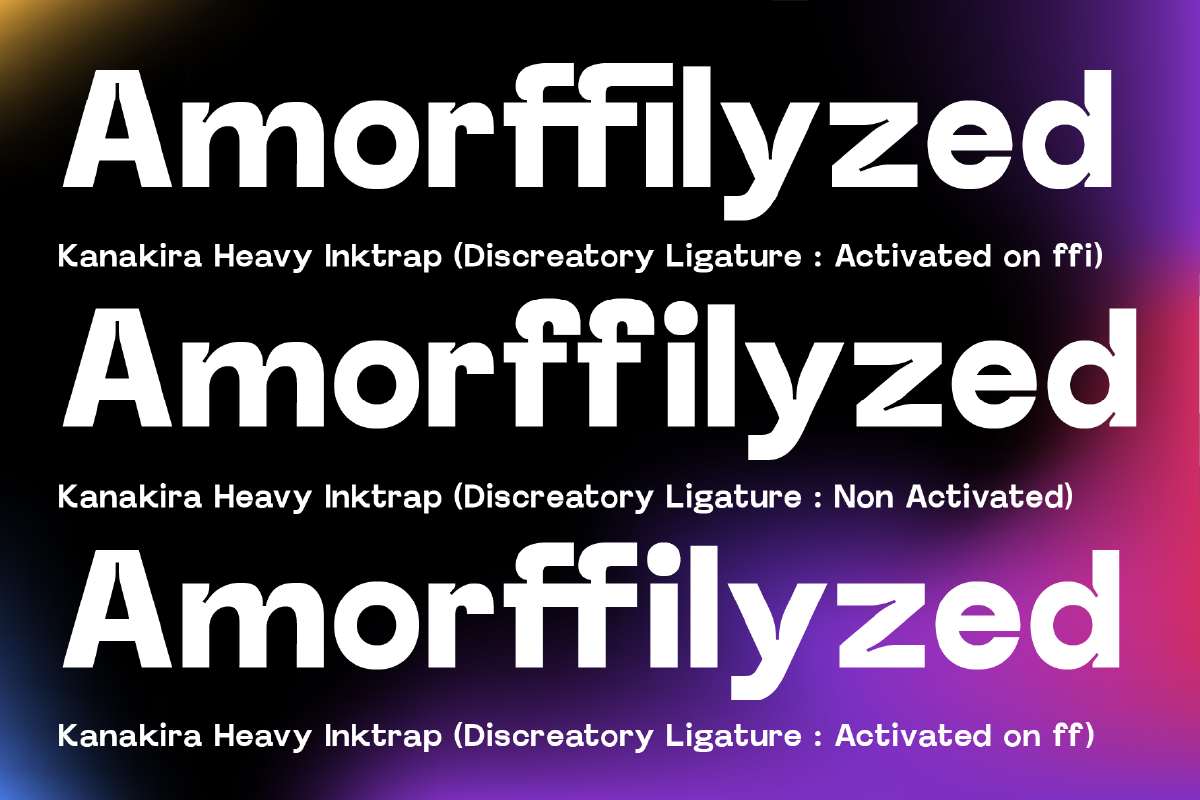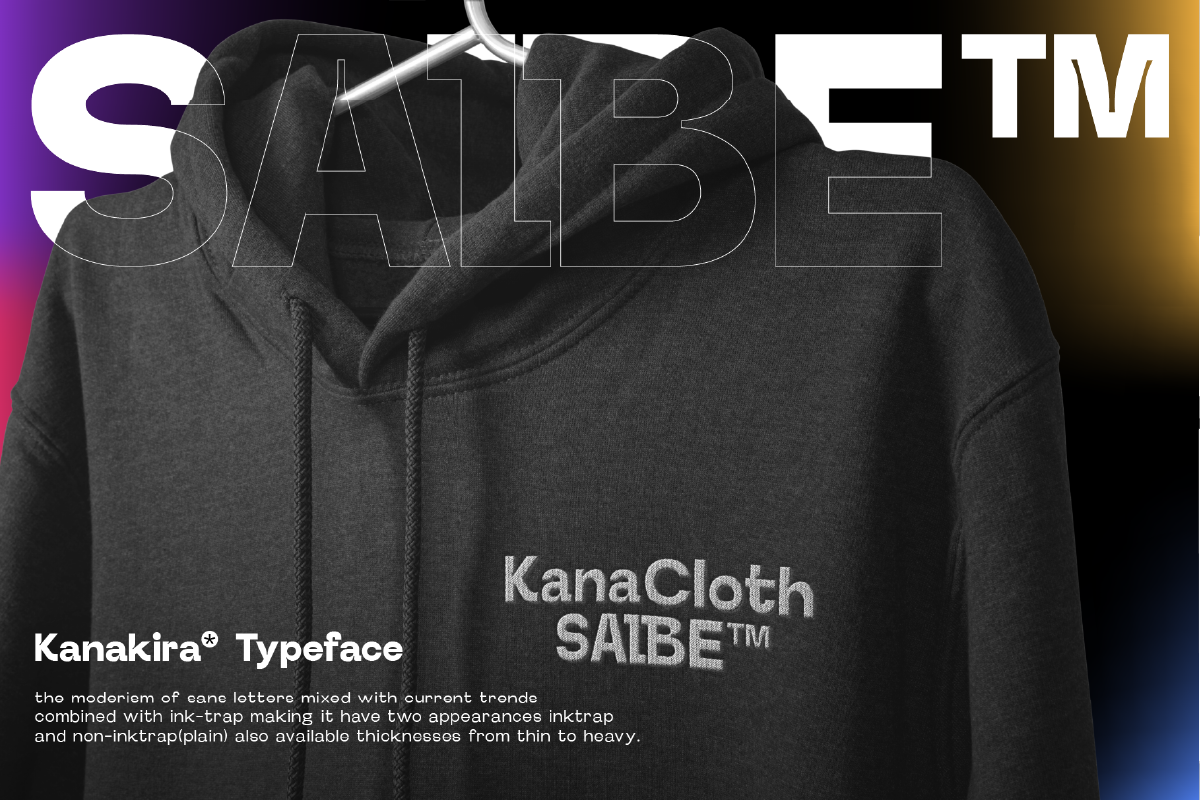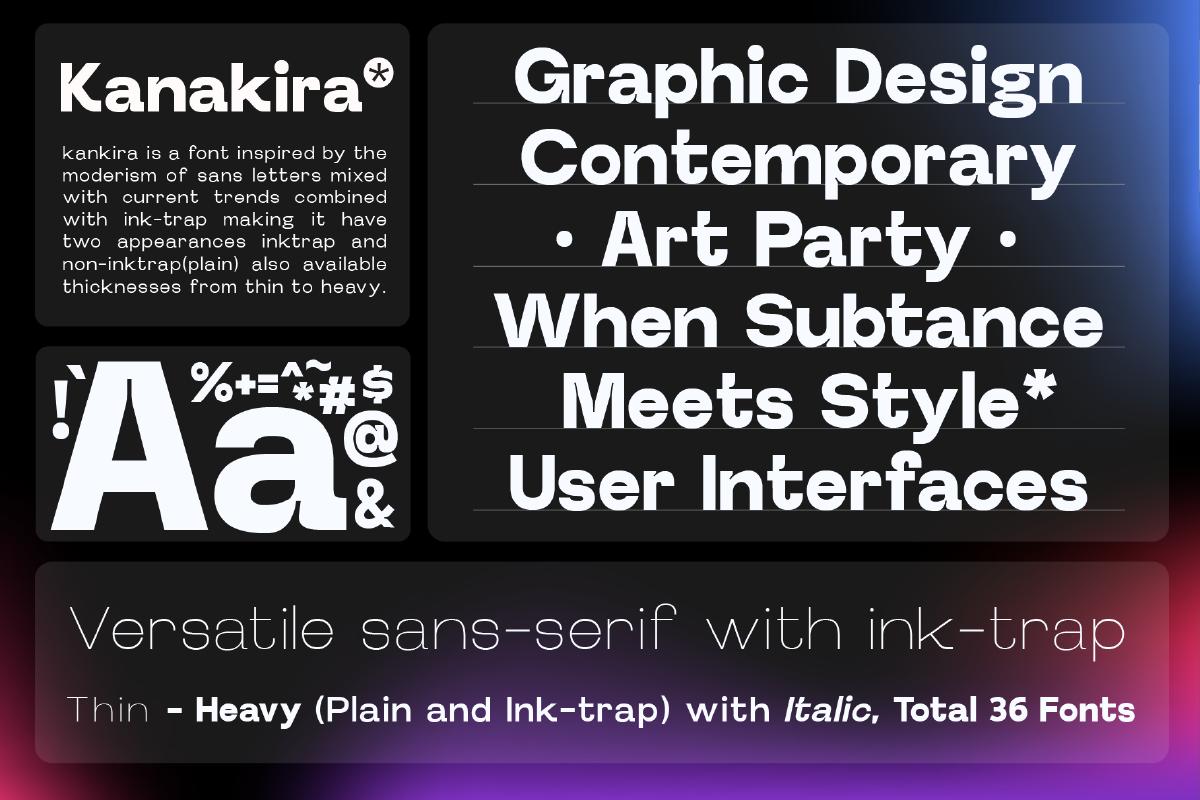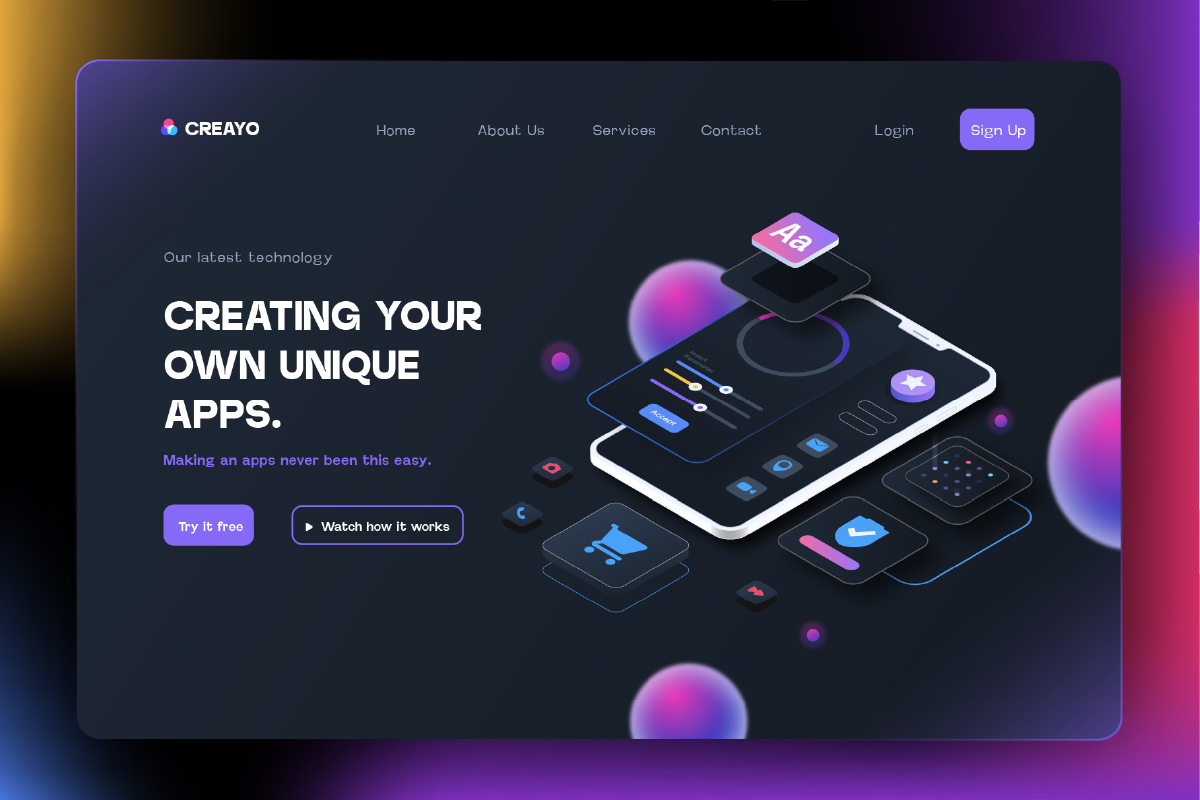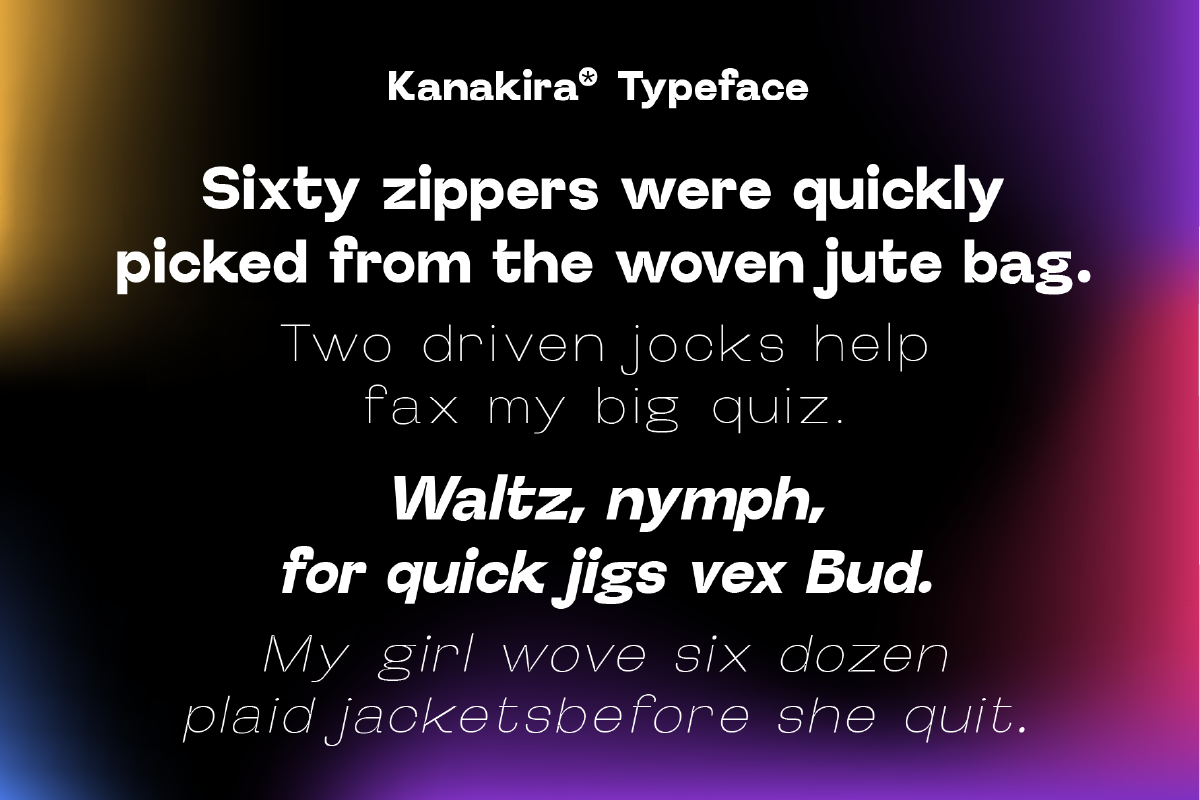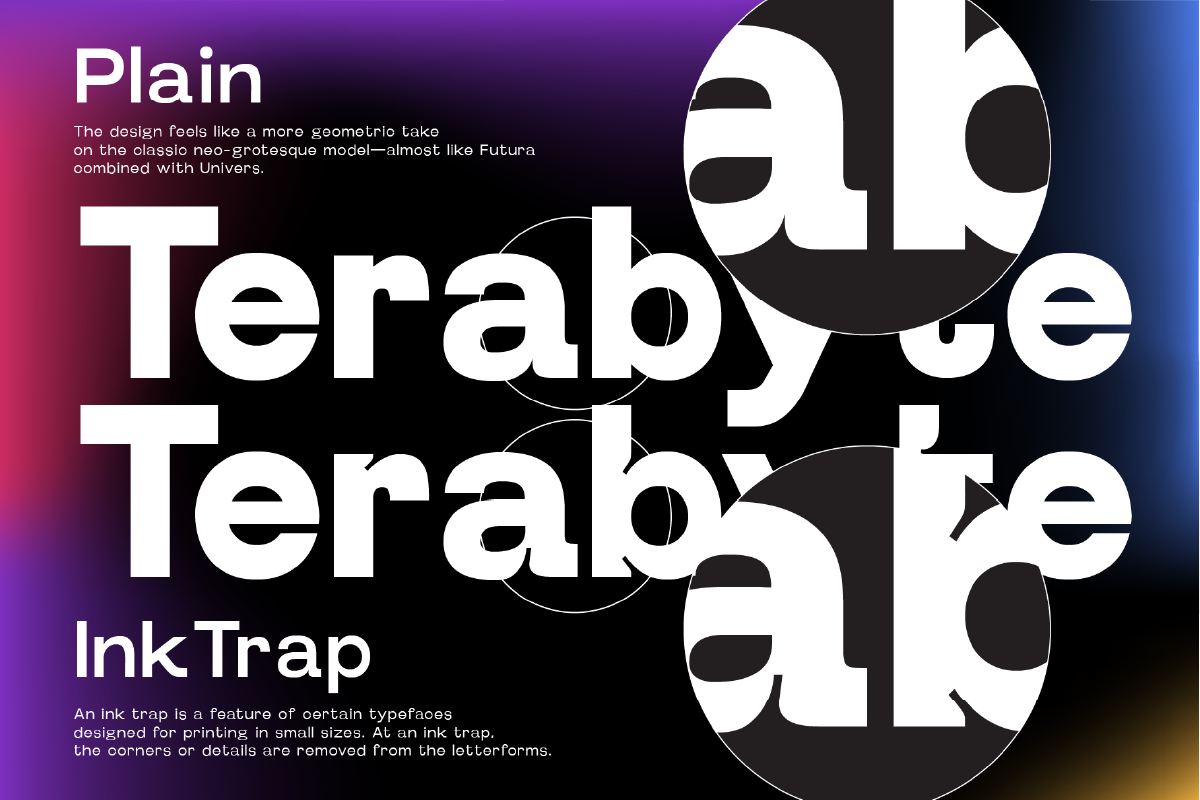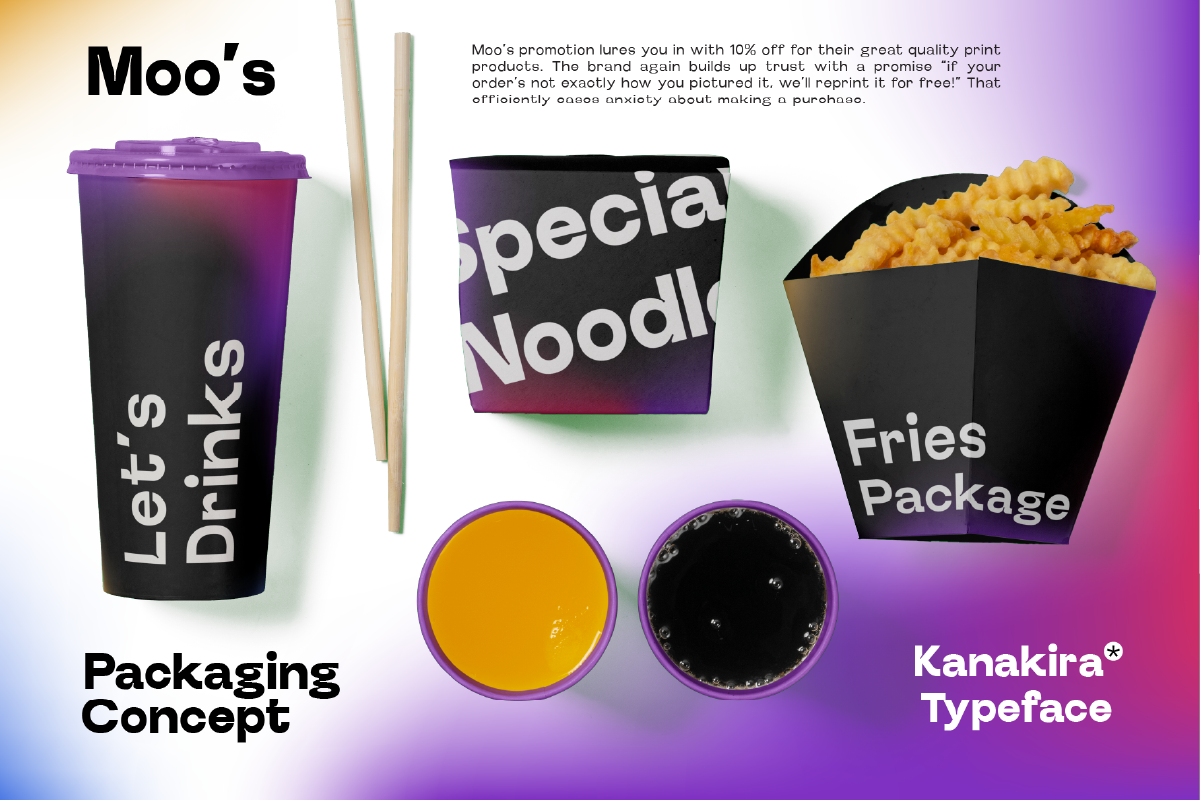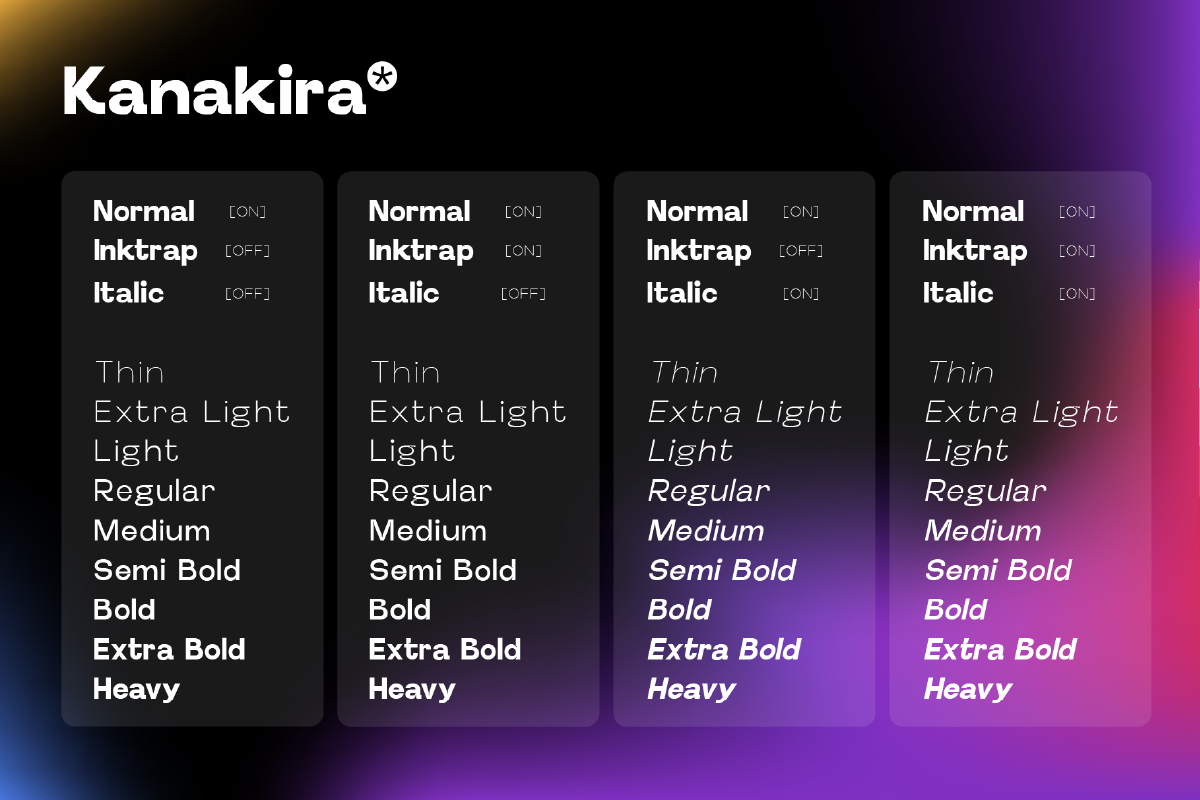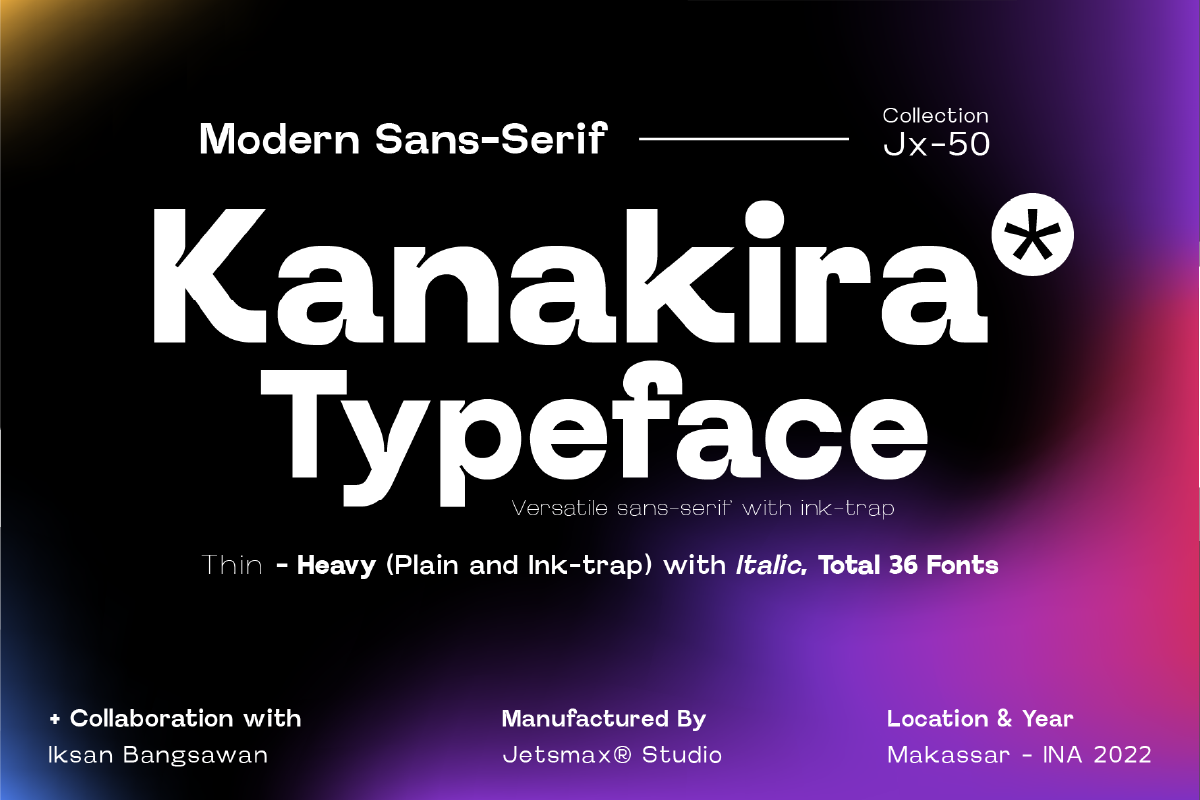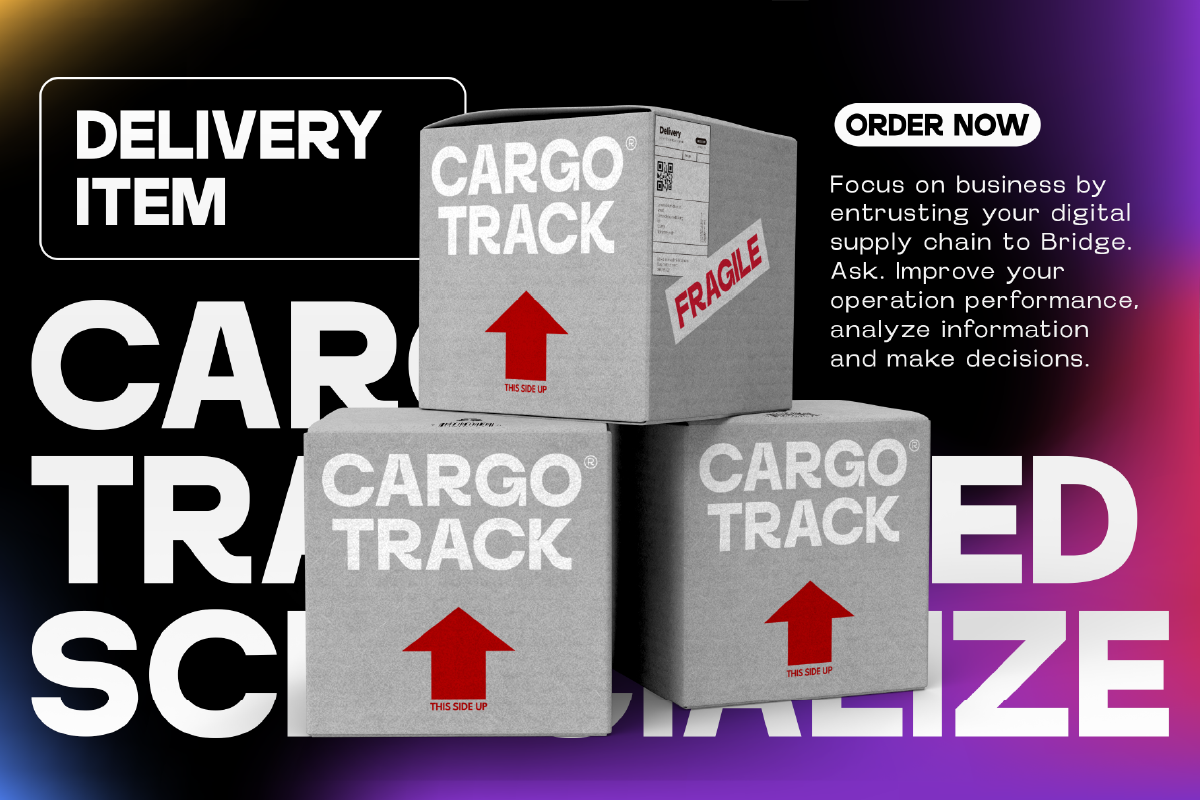
Kanakira Sans Typeface
Kanakira is a modern sans typeface heavy on a geometric take of the neo-grotesque model. Available in 3 styles, Kanakira is ready to be your “go-to” font for any project.